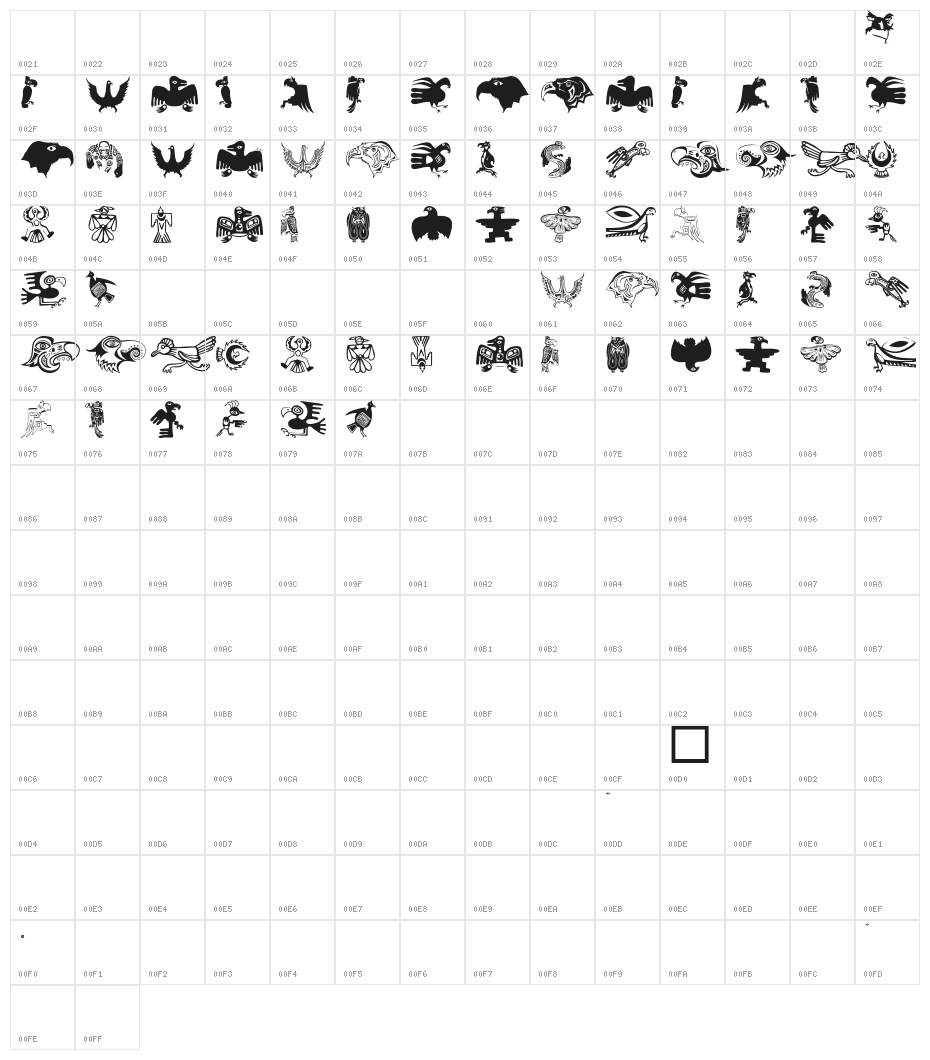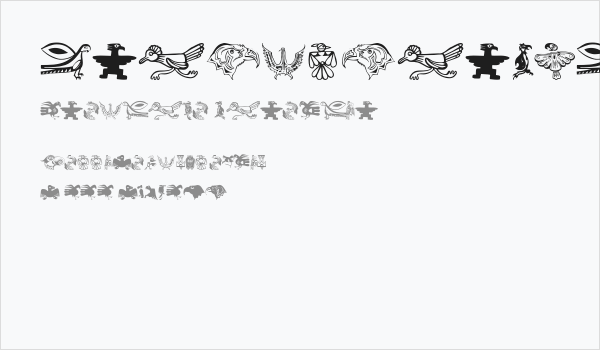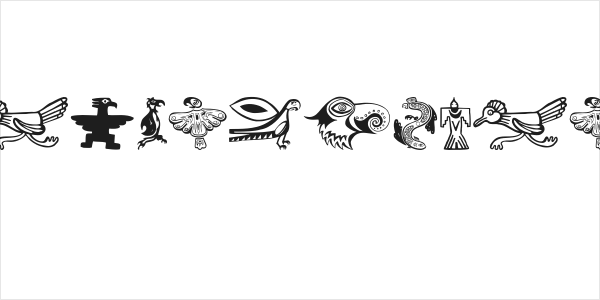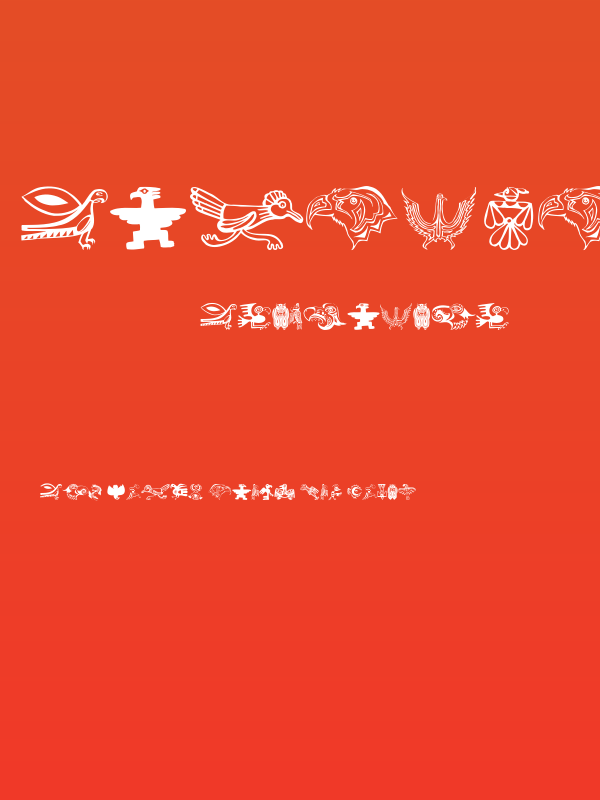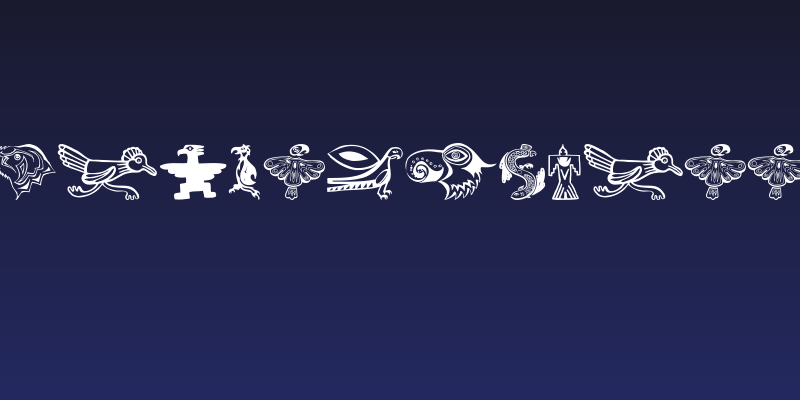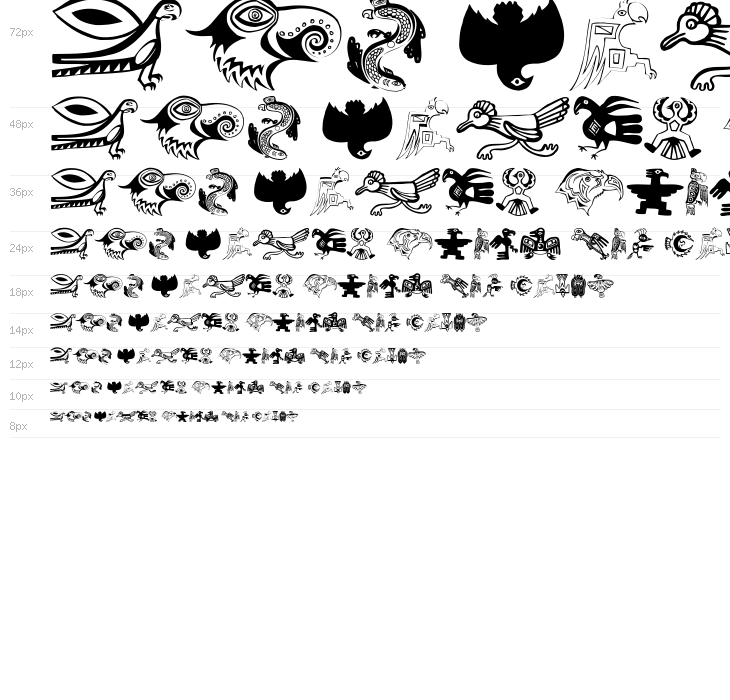
TribalBirdsTheMissingGap Font
TribalBirdsTheMissingGap Description
This font is a unique and artistic representation of tribal bird motifs, each character intricately designed to resemble various stylized birds. The characters are highly decorative, featuring bold lines and intricate patterns that evoke a sense of ancient tribal art. The font is not meant for traditional text but serves as a creative display typeface, ideal for projects that require a strong visual impact. The characters vary in complexity, with some featuring detailed feather patterns and others showcasing abstract bird forms. This font is perfect for artistic and cultural projects, offering a distinct and memorable aesthetic.
| Use Case | Logos, Artistic projects, Cultural displays |
| Proposed Projects | Ideal for cultural posters, artistic logos, event flyers, and creative branding projects. |